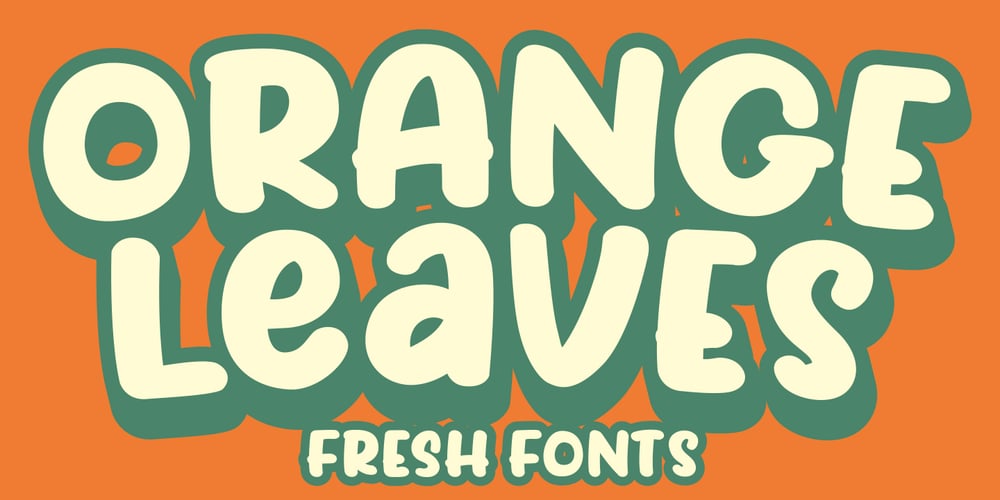
Orange Leaves Font Family was designed by Stefie Justprince and published by Crumphand. Orange Leaves contains 2 styles and family package options. Orange Leaves Fresh Fonts. This font is very unique shape. Comes with some ligature make your graphic looks fresh.Perfect Contour, Easy to read.What’s Included ? Uppercase Lowercase Symbols Numerals Multilingual Support